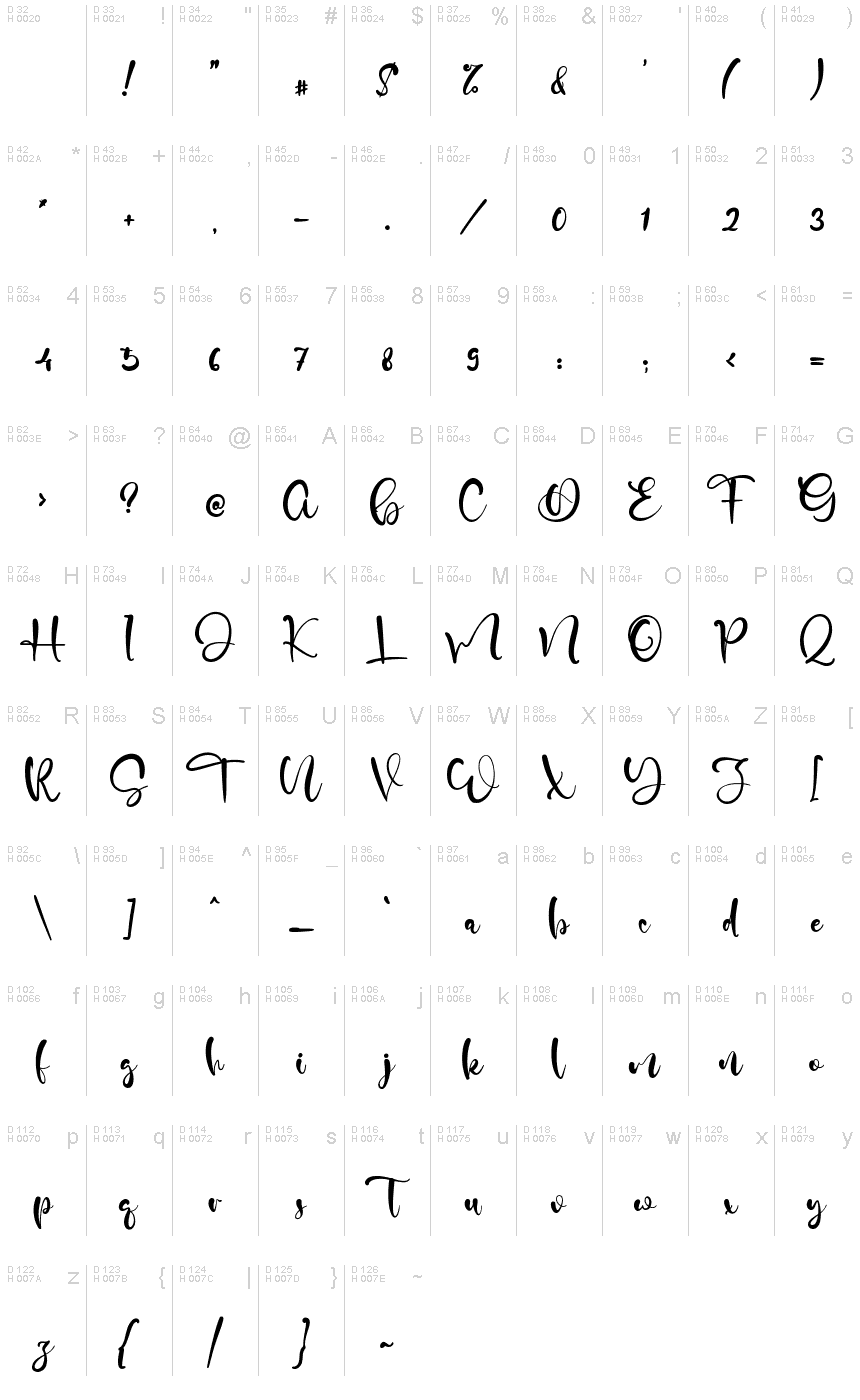
Gabriel Smith
Gabriel Smith, designed by Kong Font, is a modern calligraphy font with a semi-light weight that is perfect for adding a touch of elegance to any project. Its fluid strokes and gentle curves create a sophisticated and refined look that will make your designs stand out from the crowd. Whether you're working on wedding invitations, branding materials, or social media graphics, Gabriel Smith is the ideal font choice for those looking to add a touch of class to their work. Try it out today and elevate your designs to the next level with this stunning semi-light calligraphy typeface.